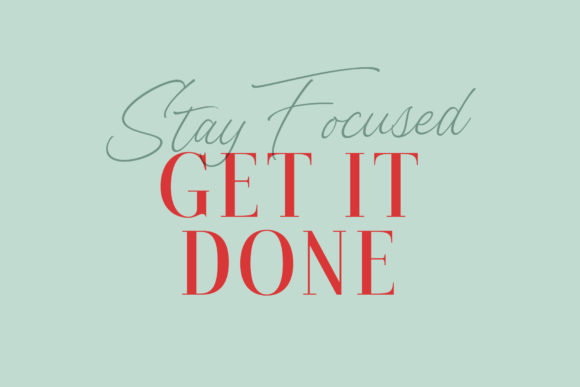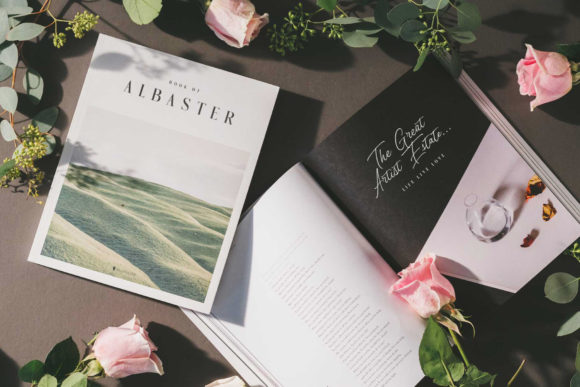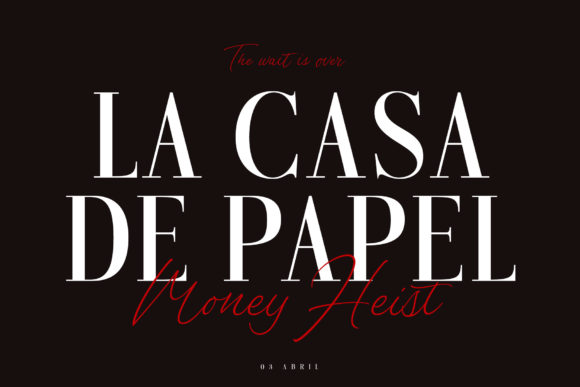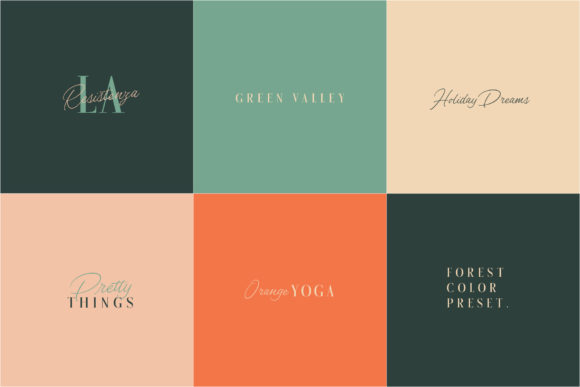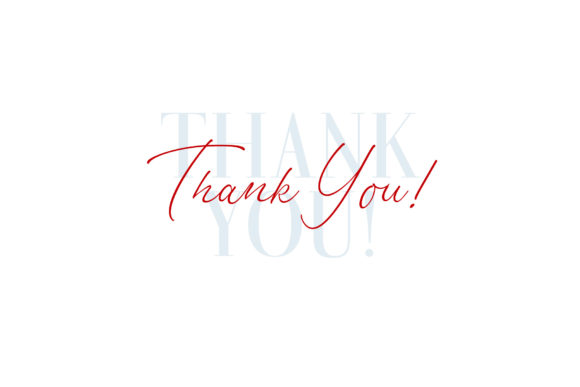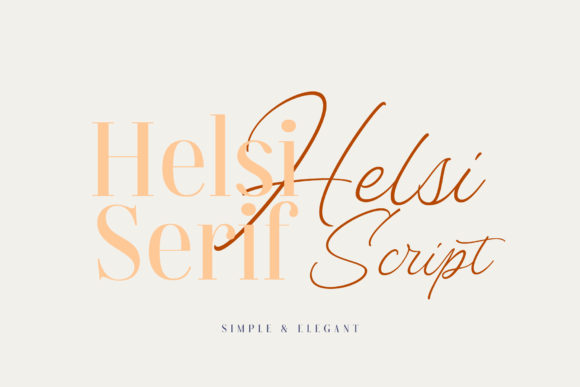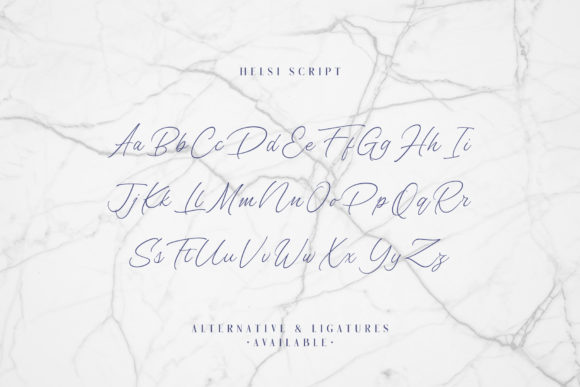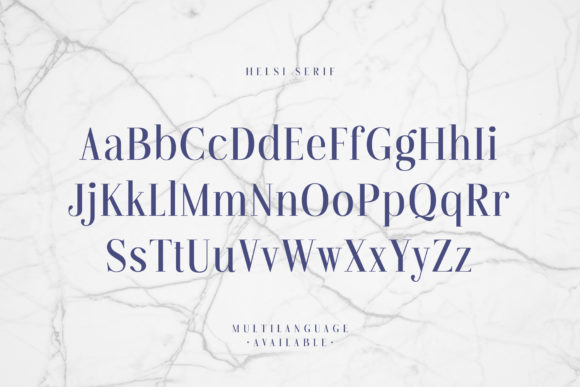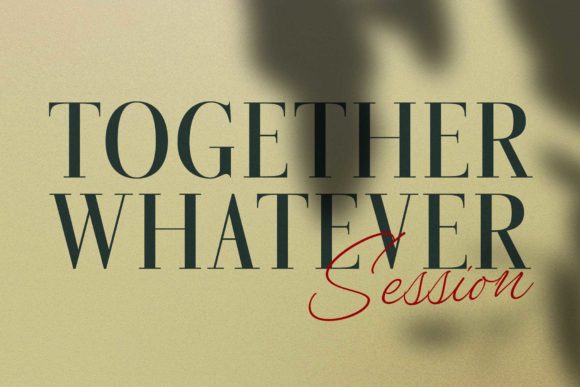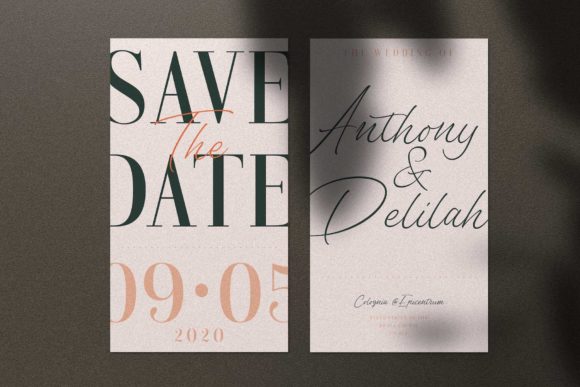
Helsi Font
About Helsi Font
Helsi duo is a match made in heaven. Combining the script and the serif font will give your next design an elegant and romantic feel.